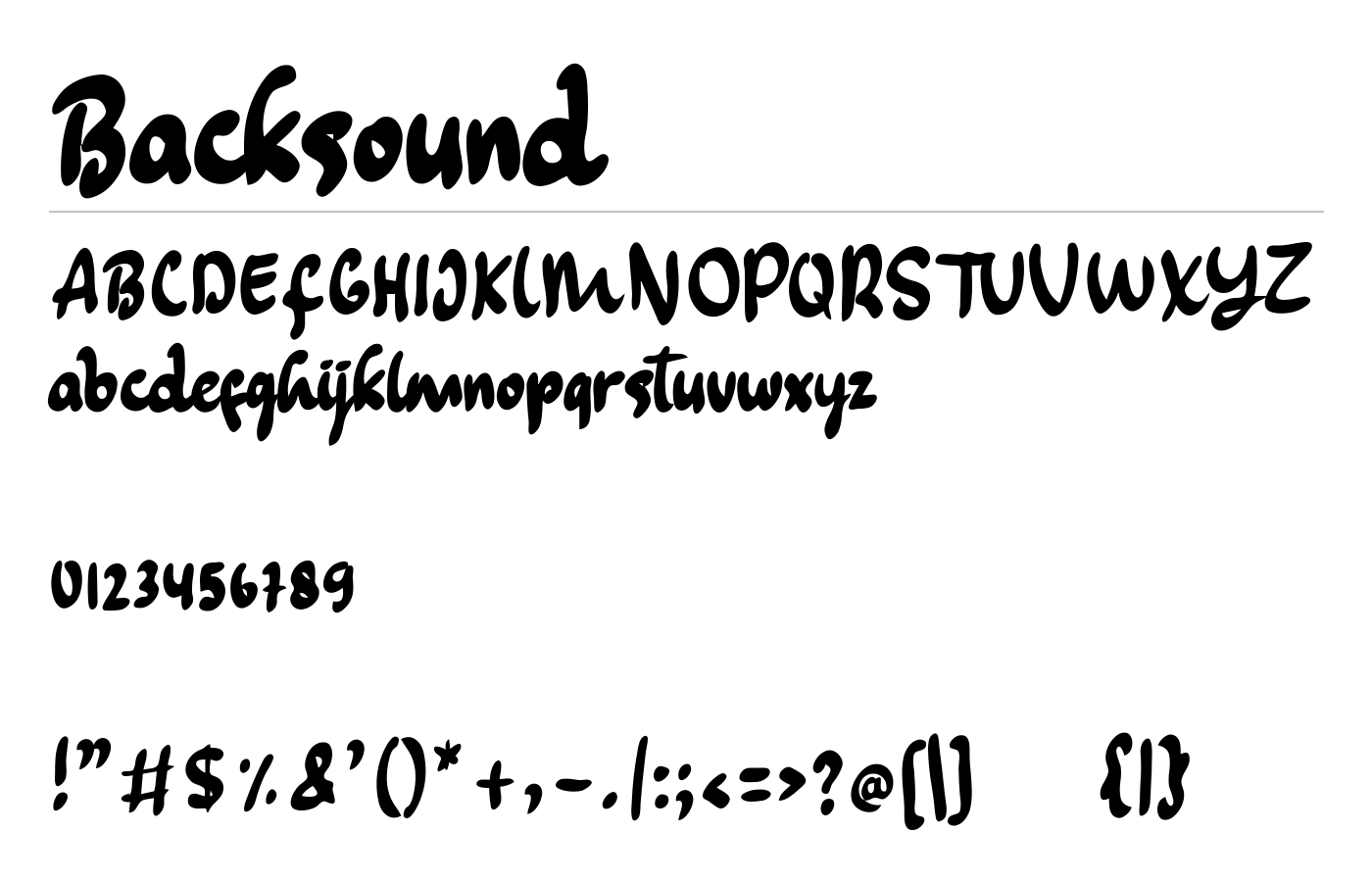
Backsound is a bold, playful script font with a hand-drawn feel that brings energy and personality to any design. Its thick, rounded strokes and lively letterforms make it ideal for creative projects, casual branding, and eye-catching headlines where a friendly and approachable tone is desired. This font works well for logos, posters, and packaging that seek to convey fun and creativity.
Backsound Font
About Backsound Font
| Font family | Backsound Font |
| Designer | Letterday Studio |